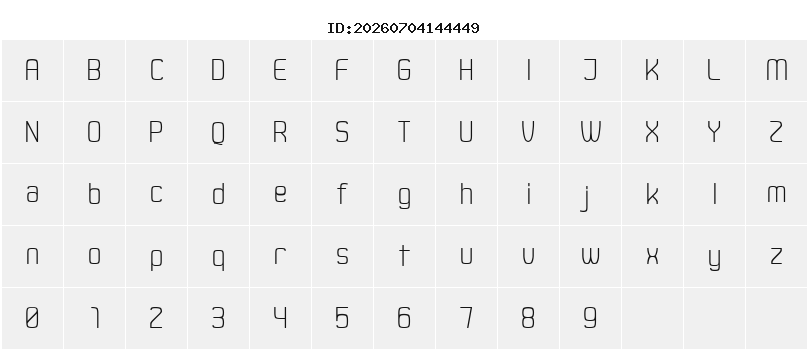
• Designer: Alex Banks
About Duster AB.ttf
Duster AB.ttf is a modern, elegant sans-serif font designed for ultimate readability and visual harmony. Perfect for branding, headlines, web design, and print materials.